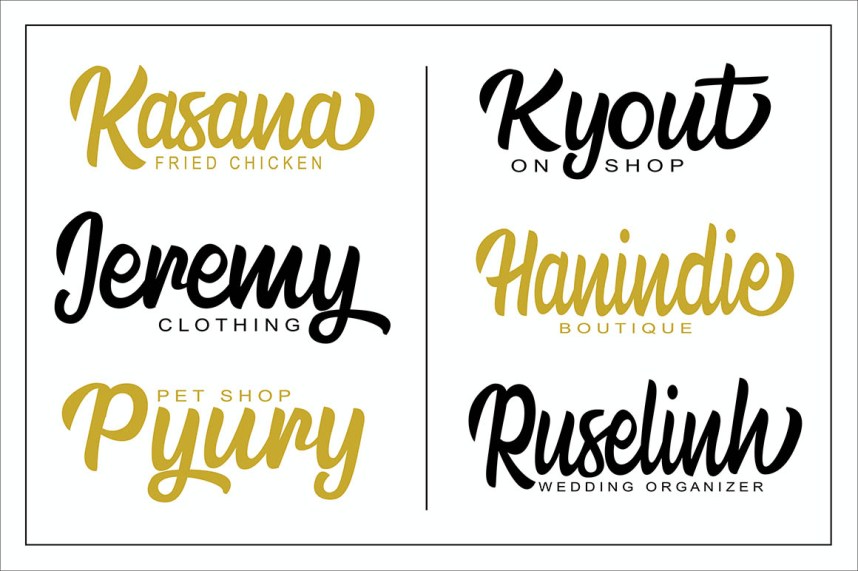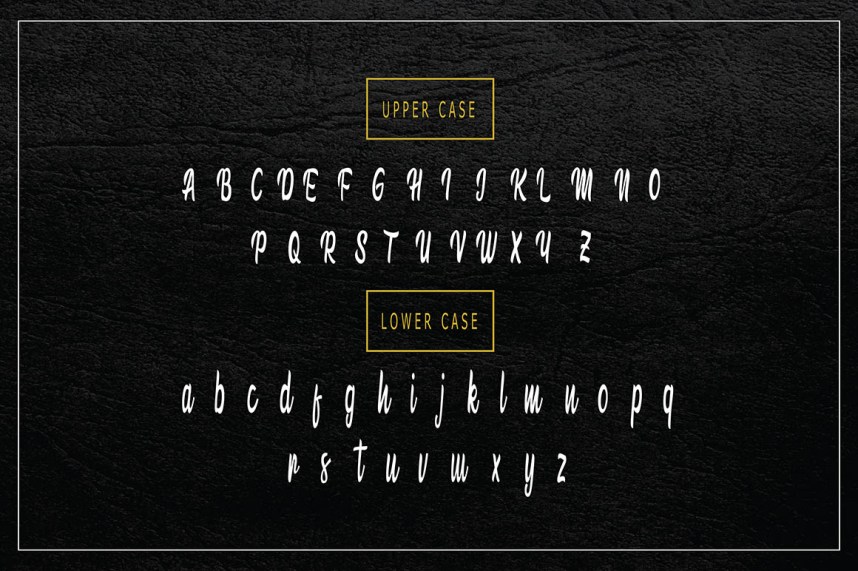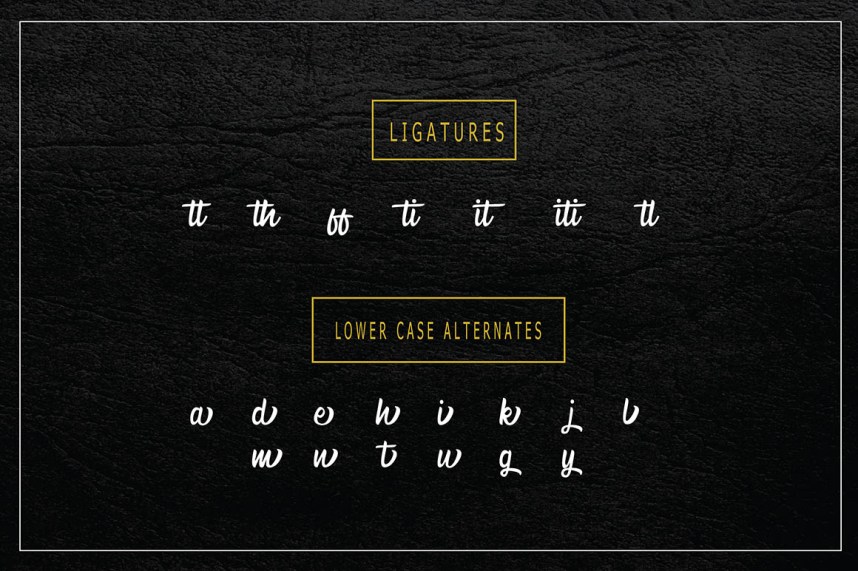
Mainmia – Free Script Font
Welcome to Mainmia Script Font, it is a font bold script. Mainmia designed and shared by faras dina. This font is good for Brand design, t-shirt, logo, labels, posters and etc. Mainmia typeface include Uppercase, Lowercase, Numerals & Punctuations for combine your design.